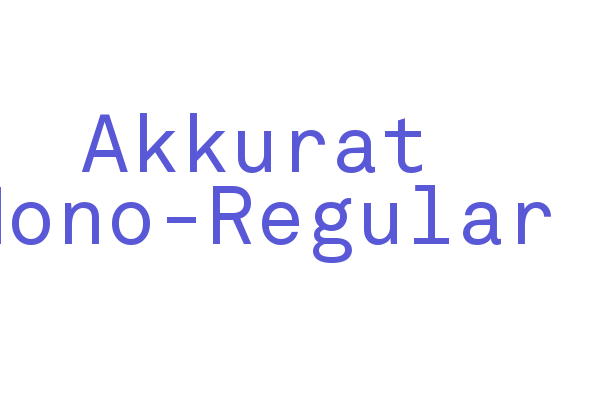
Akkurat Mono-Regular is a basic sans-serif font from the Akkurat Mono font family. Its clean and modern design makes it ideal for a wide range of uses, from website design to print materials. With a regular style, this font is versatile and easy to read, making it a great choice for both digital and print projects.
Font Name: Akkurat Mono-Regular
Font Family: Akkurat Mono